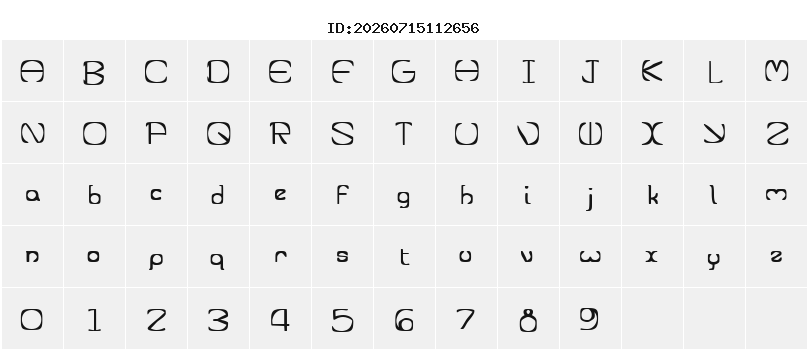
ZirkStressed Preview
About ZirkStressed.ttf
ZirkStressed.ttf is a modern, elegant sans-serif font designed for ultimate readability and visual harmony. Perfect for branding, headlines, web design, and print materials.